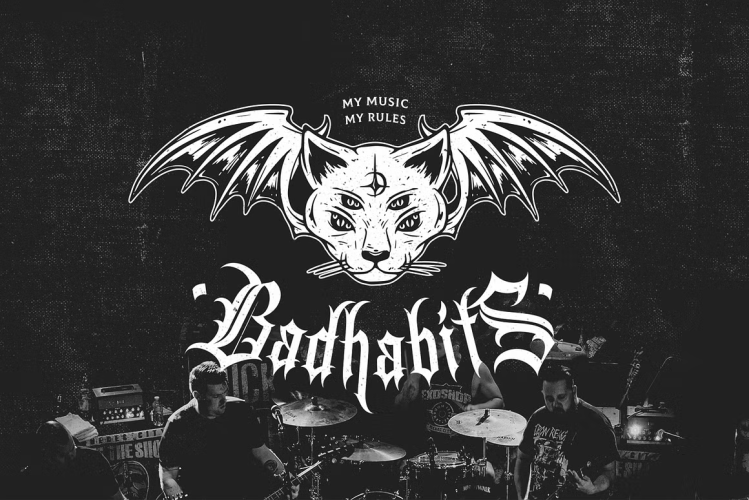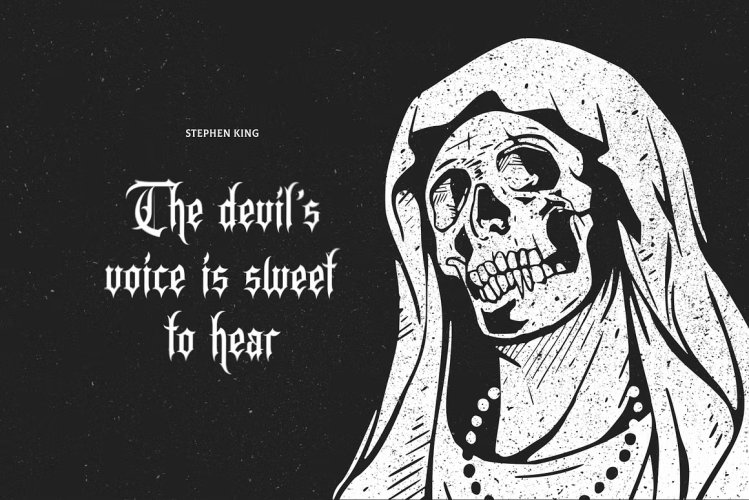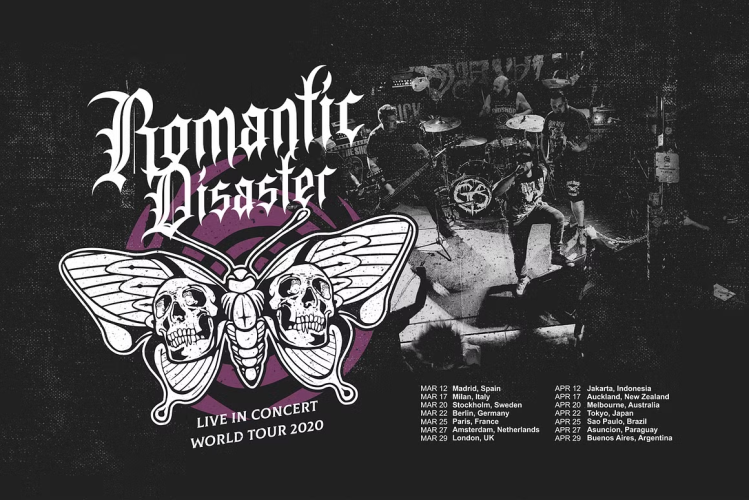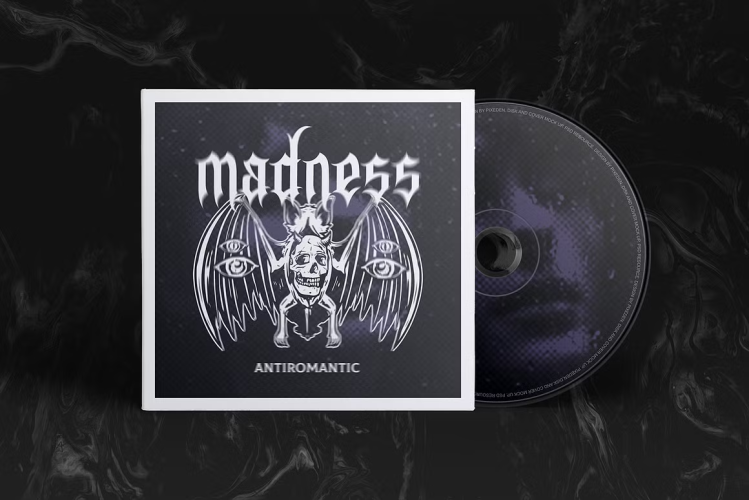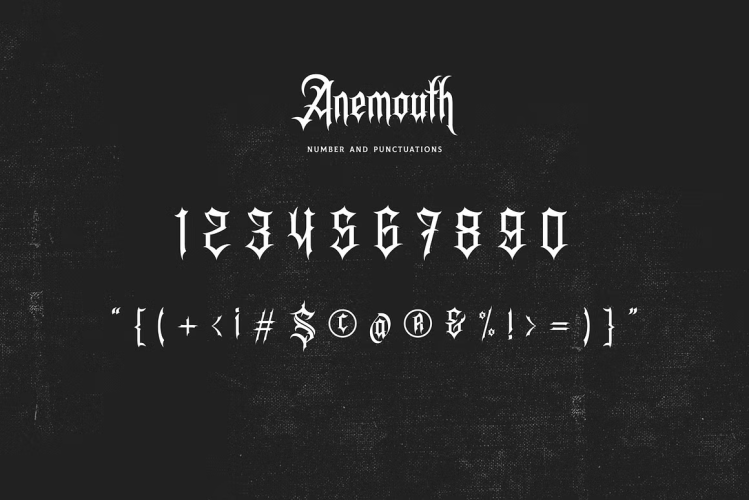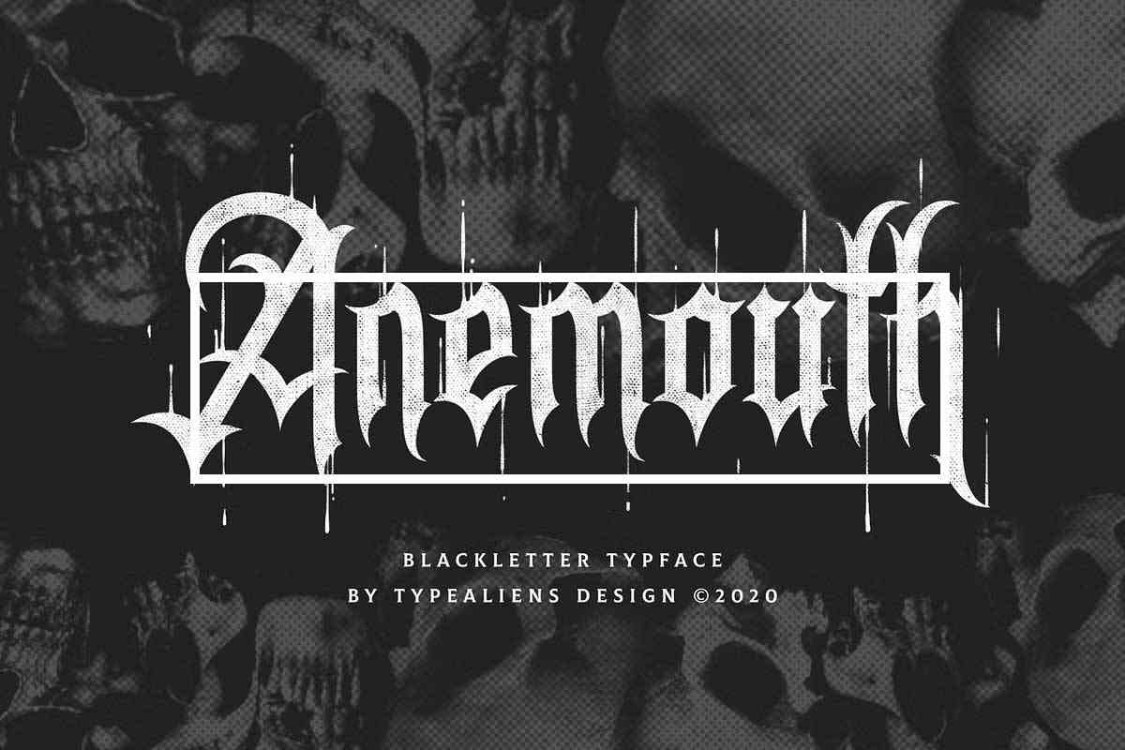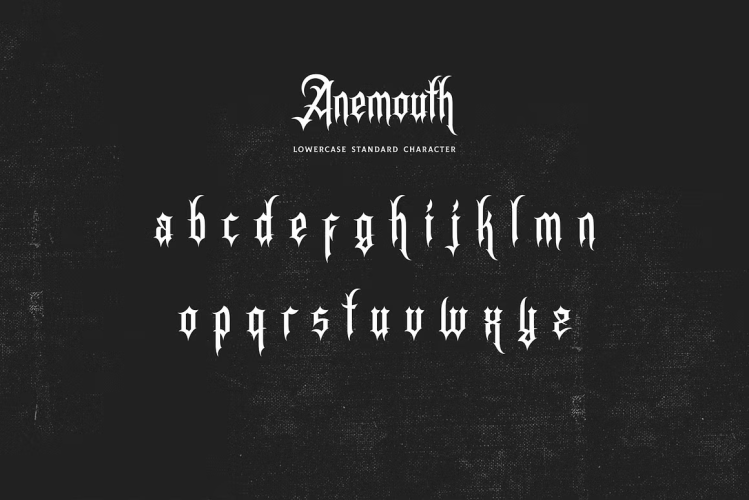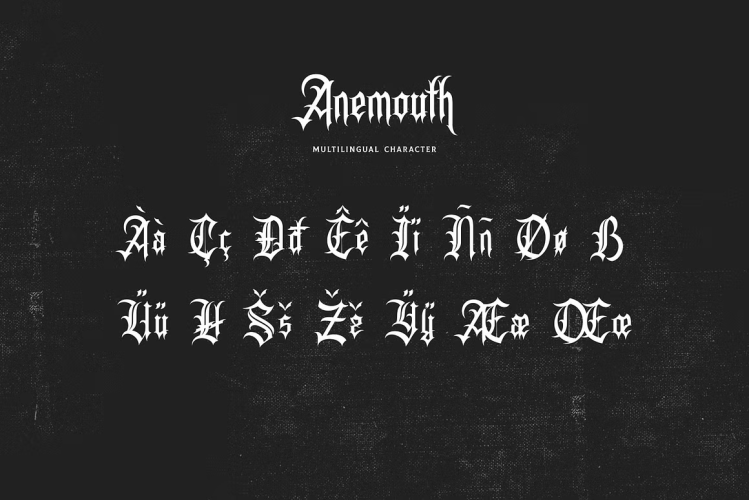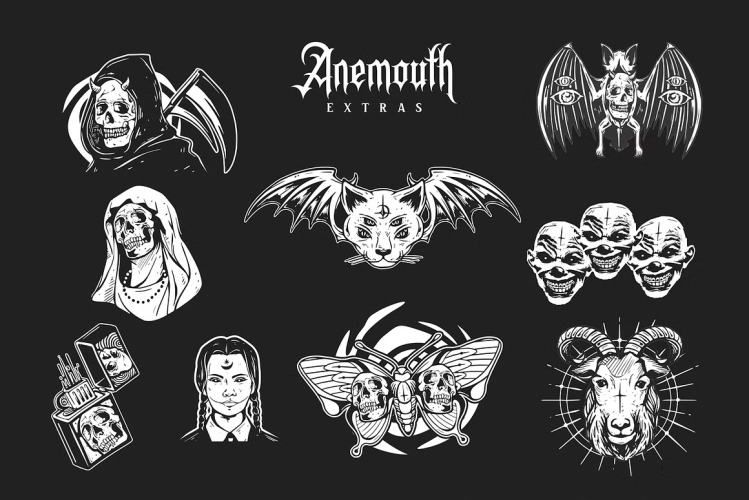
Anemouth Font
Anemouth is a Blackletter font that blends slightly “darker” and is somewhat tangent to the “devil” impression. So, this font is a classic body with a soul that can adjust to the modern world.
This font will suit band names/logos, album covers, metal/hardcore/underground/punk band posters, etc. Besides that, it will also be ideal for merchandise such as t-shirts, bandanas, band posters, etc.
We also give a little bonus illustration that matches the scary character of the font so that it will help you create an excellent design.
Anemouth Font is a Decorative Fonts font that brings a professional and versatile look to your projects. Anemouth is a Blackletter font that blends slightly “darker” and is somewhat tangent to the “devil” impression.